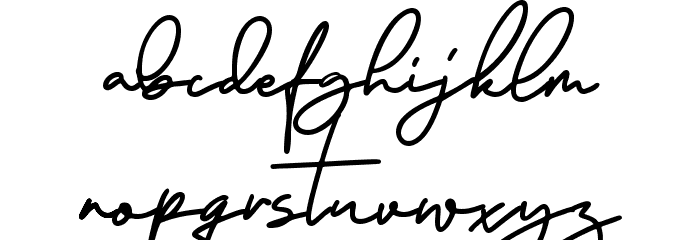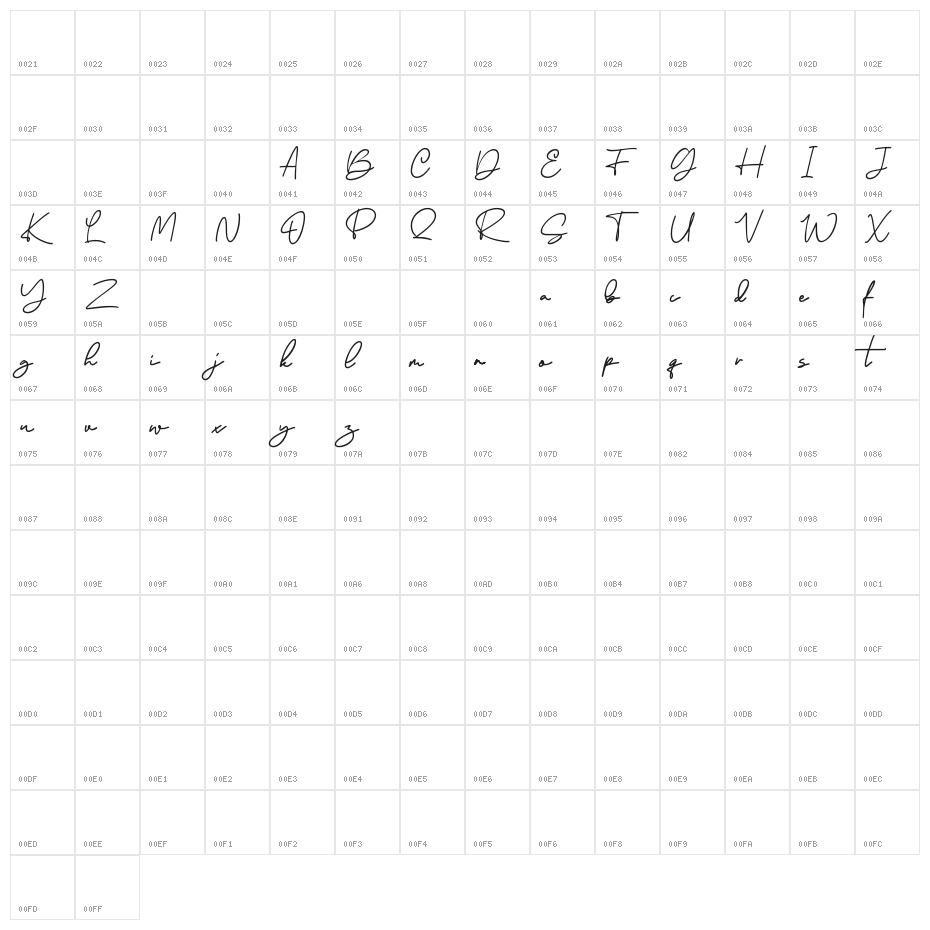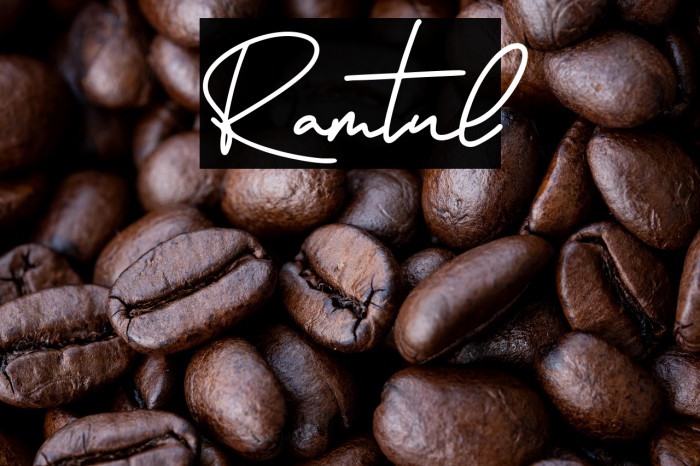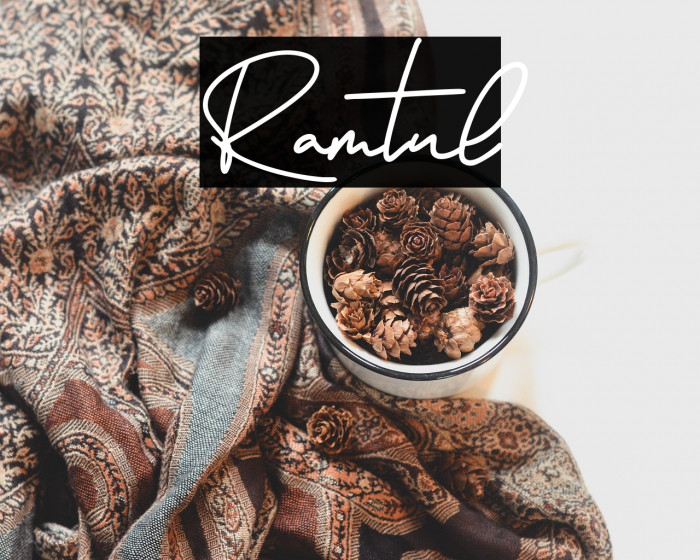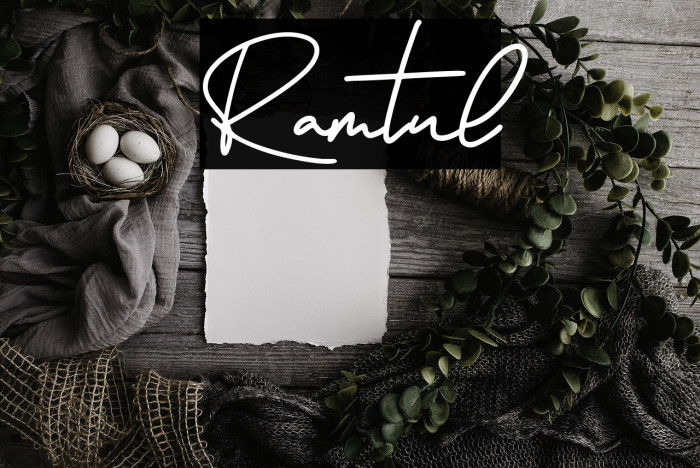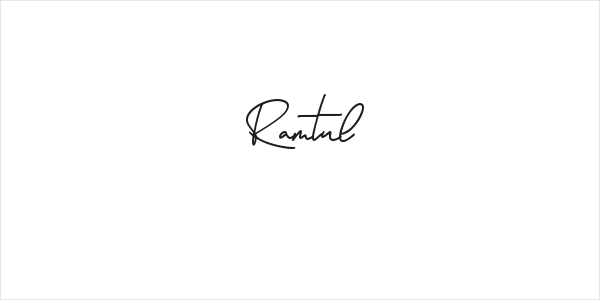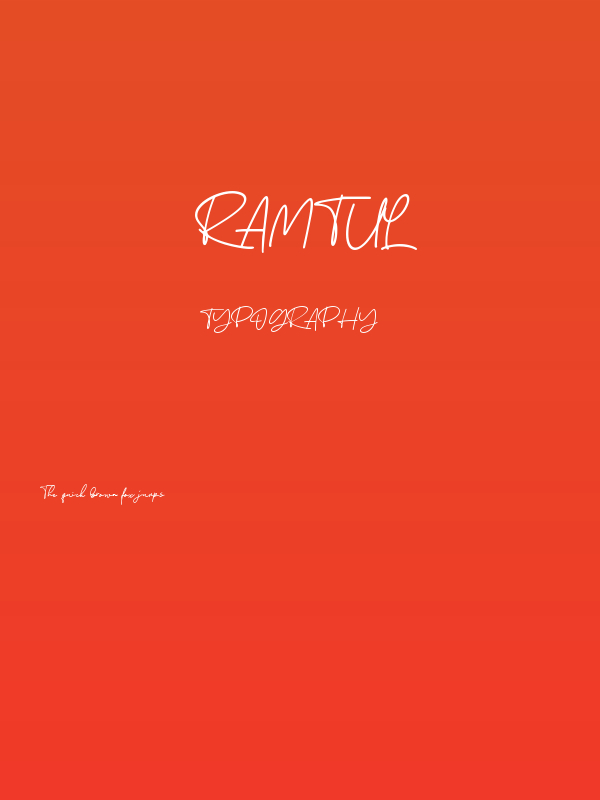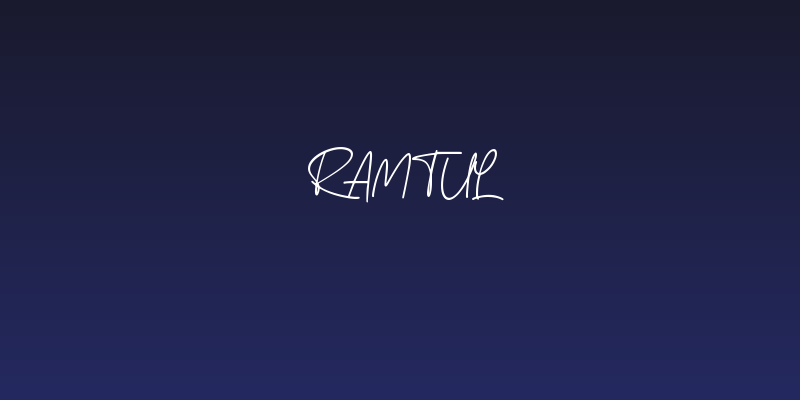
Ramtul Font
This font features a fluid and elegant script style that mimics natural handwriting. The uppercase letters are tall and slightly slanted, with smooth curves and a consistent flow. The lowercase letters maintain a cohesive look, with some letters connecting seamlessly to the next, enhancing the cursive effect. The overall appearance is sophisticated and artistic, making it suitable for creative and personal projects. The numerals and special characters are designed to match the script style, ensuring uniformity across all text elements.
A fluid and elegant script font with a natural handwriting style.
- Proposed Projects: Ideal for wedding invitations, personal branding, greeting cards, and artistic projects.
- Category: Script
- Overall Style: Elegant
- Use Case: Logos, Invitations, Personal Branding